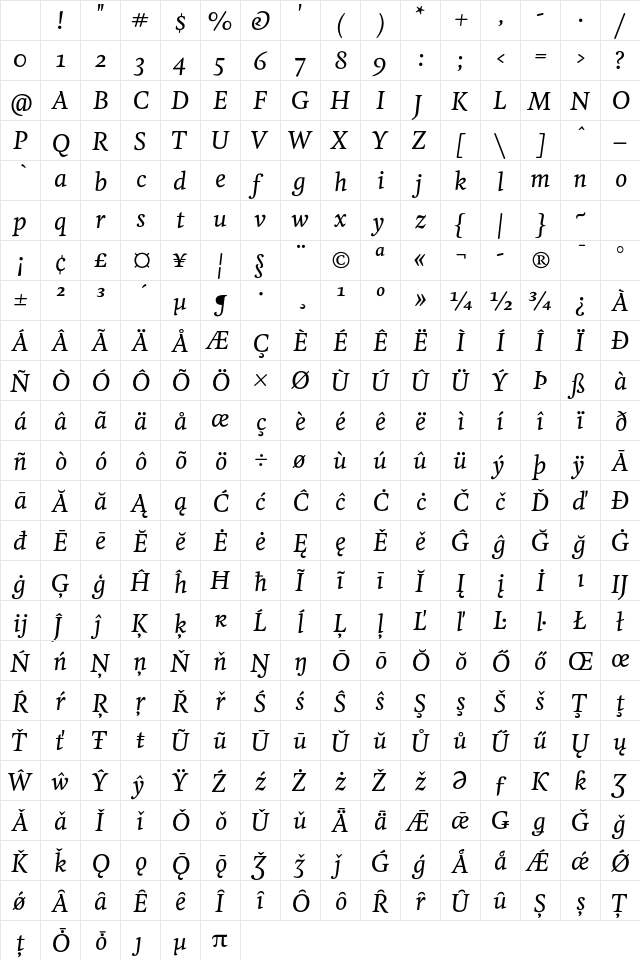
Feijoa is a composed and adaptable typeface that performs quietly and consistently across a wide range of design contexts. The slanted form adds forward momentum and visual energy.
Pro Tip: Use Feijoa for emphasis, pull quotes, and subheadings where its slanted energy can add rhythm to the layout.